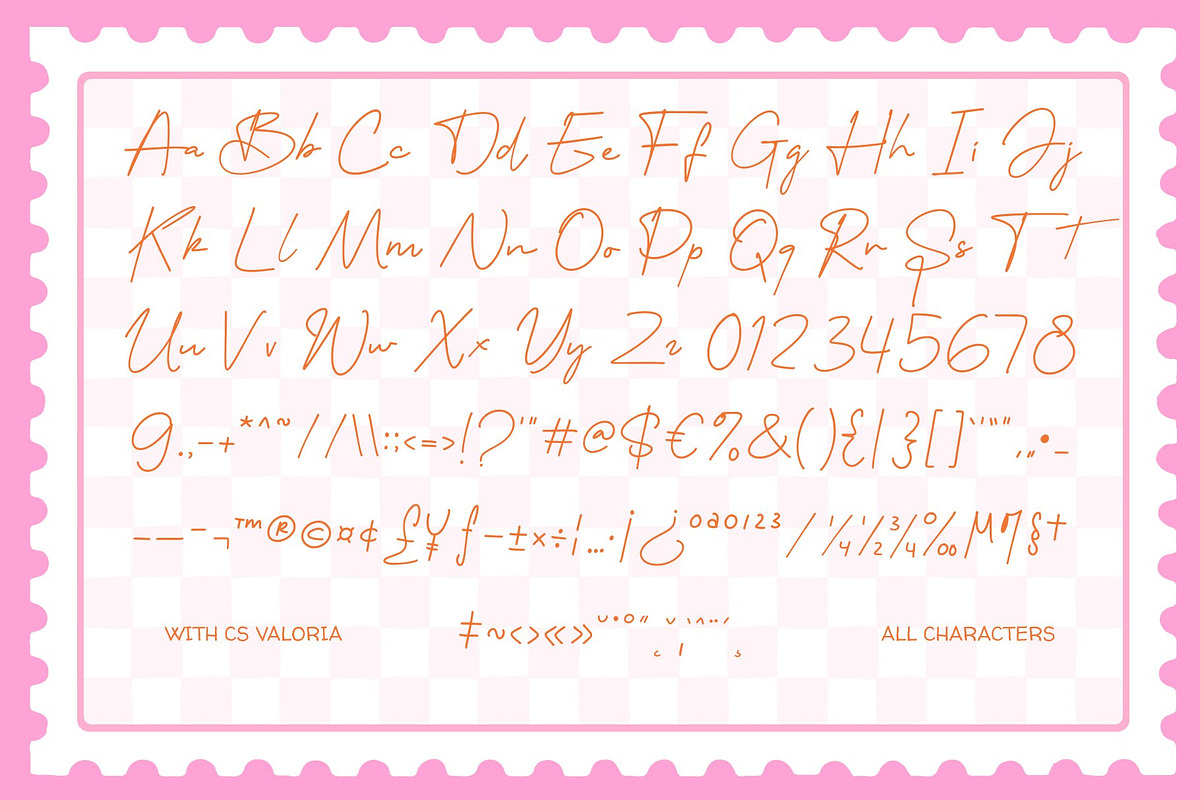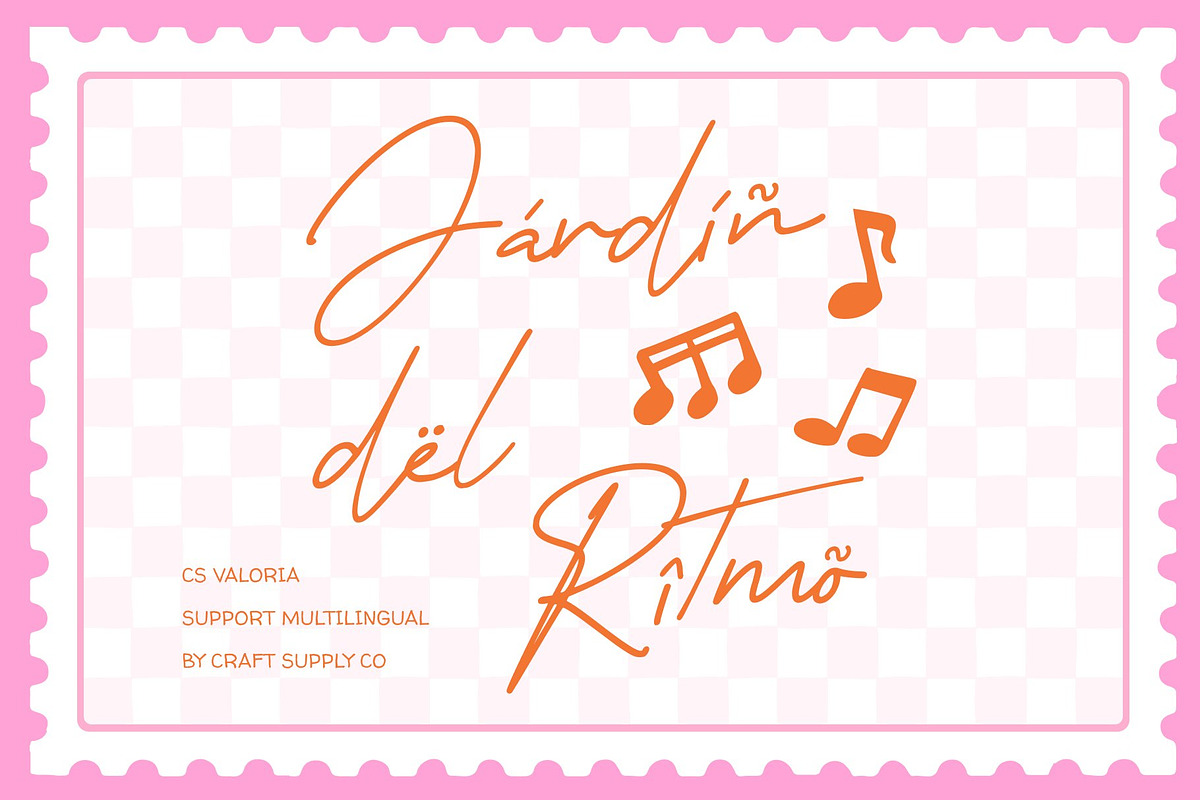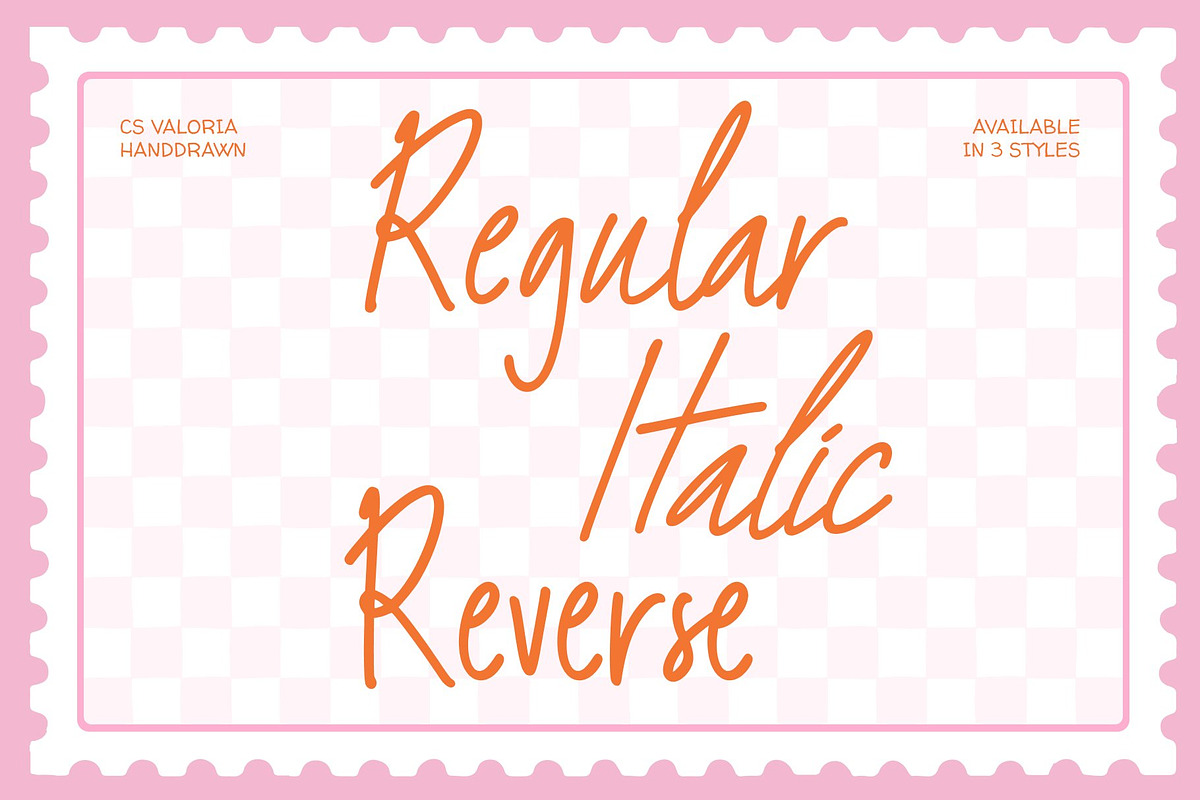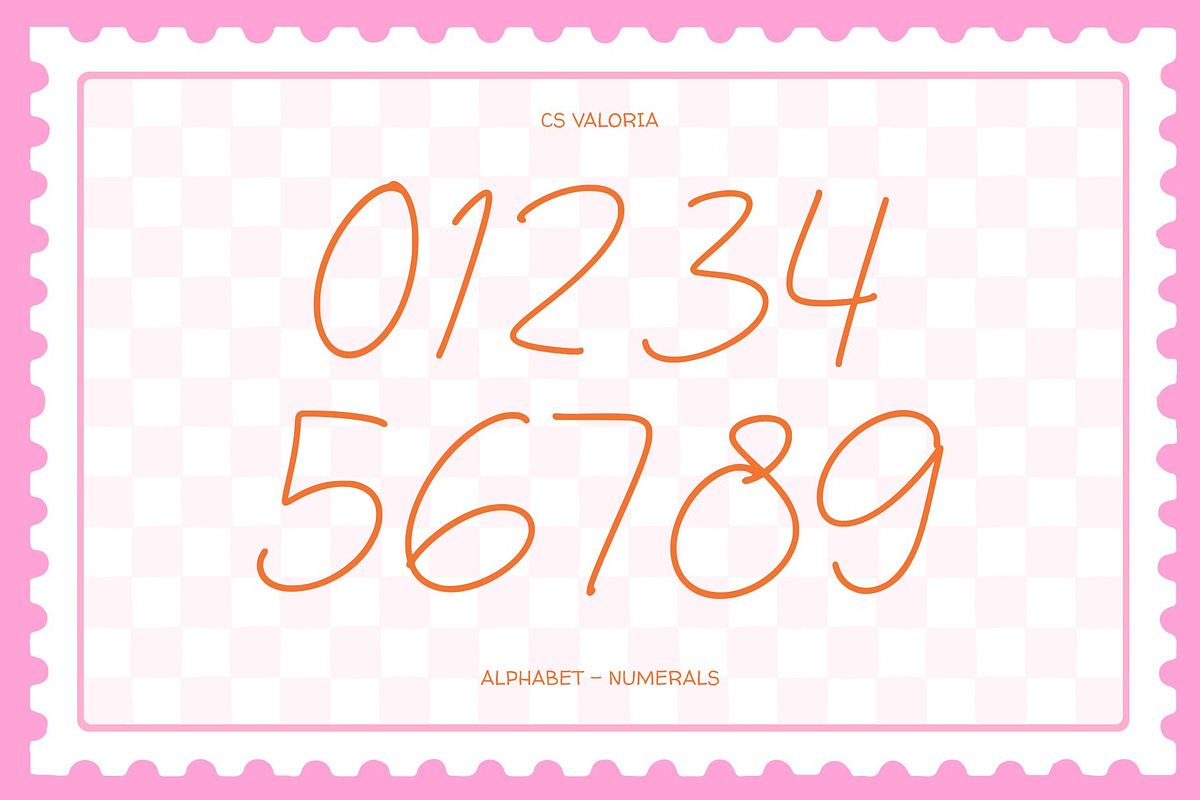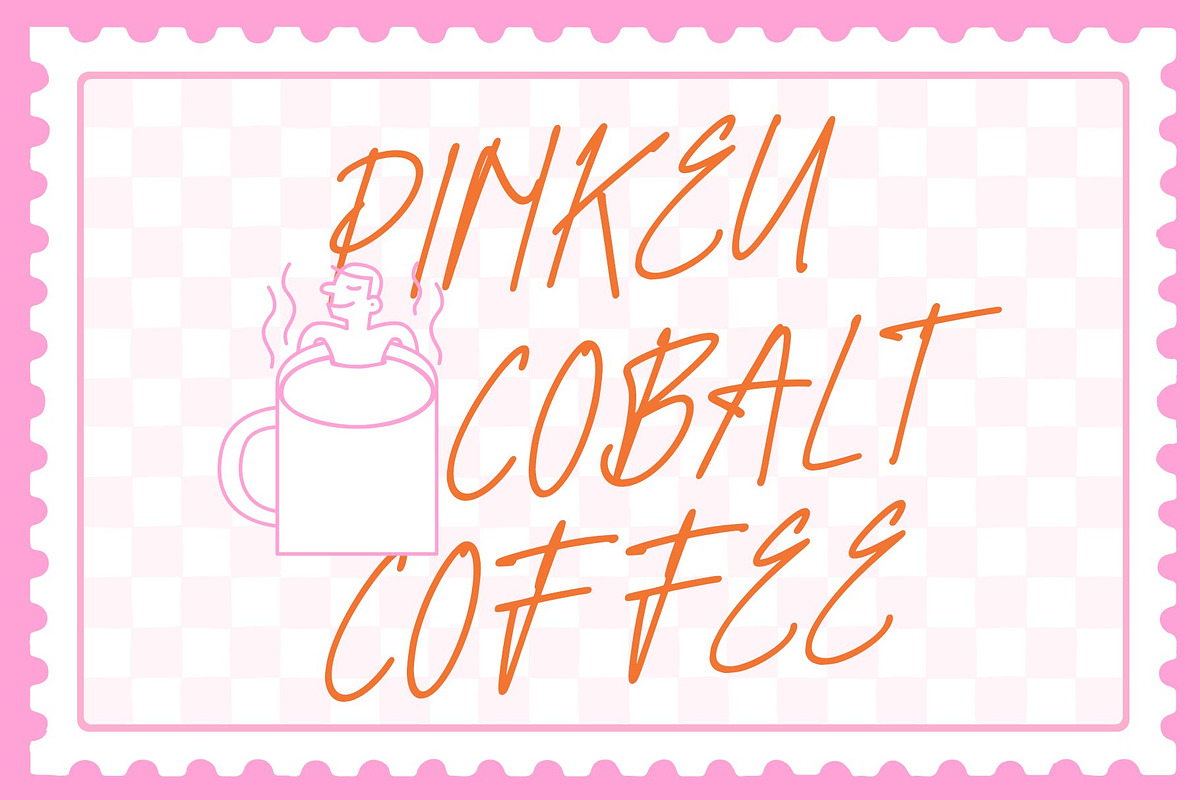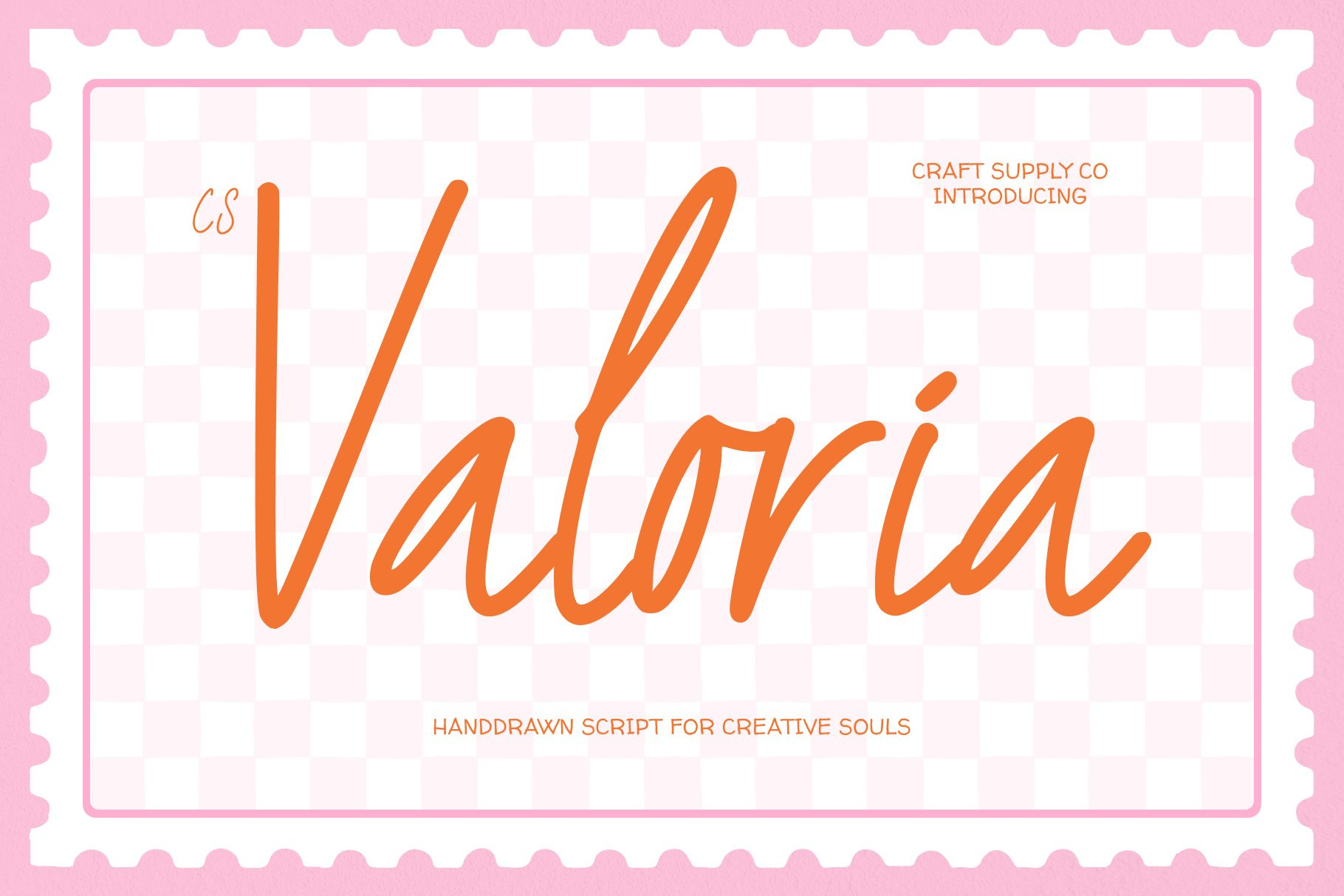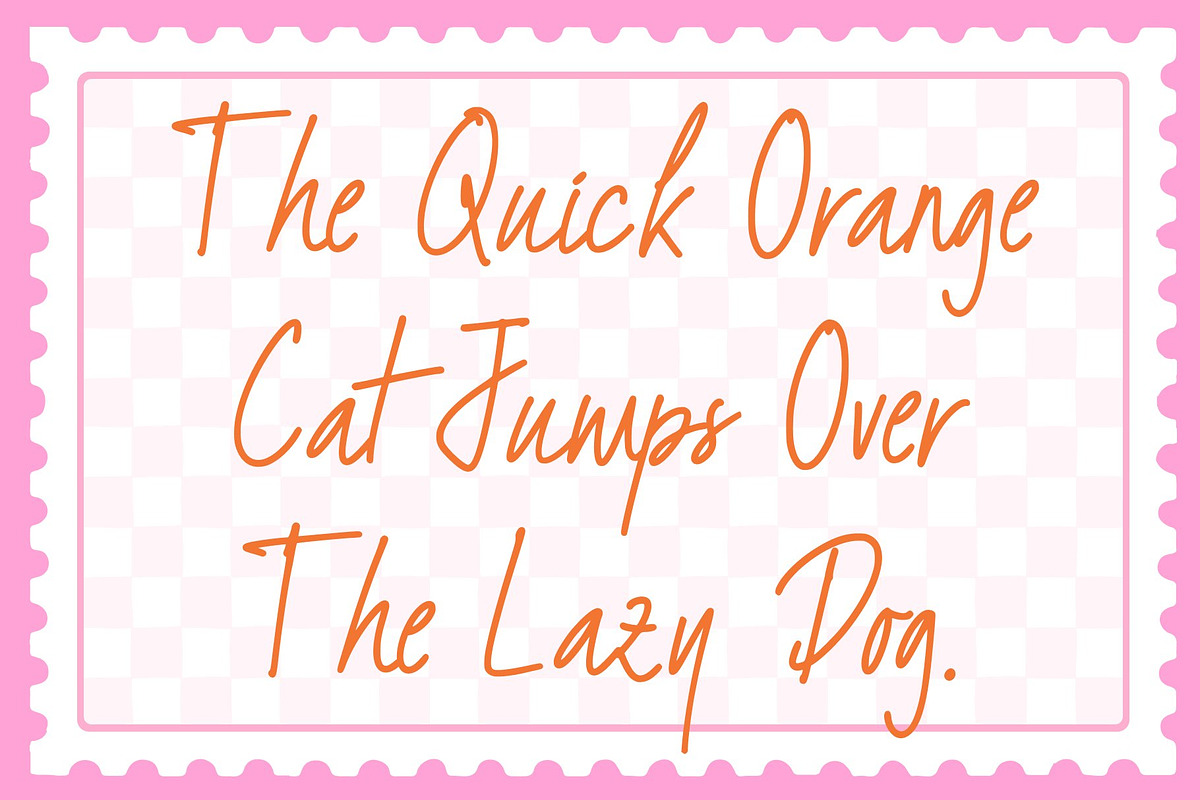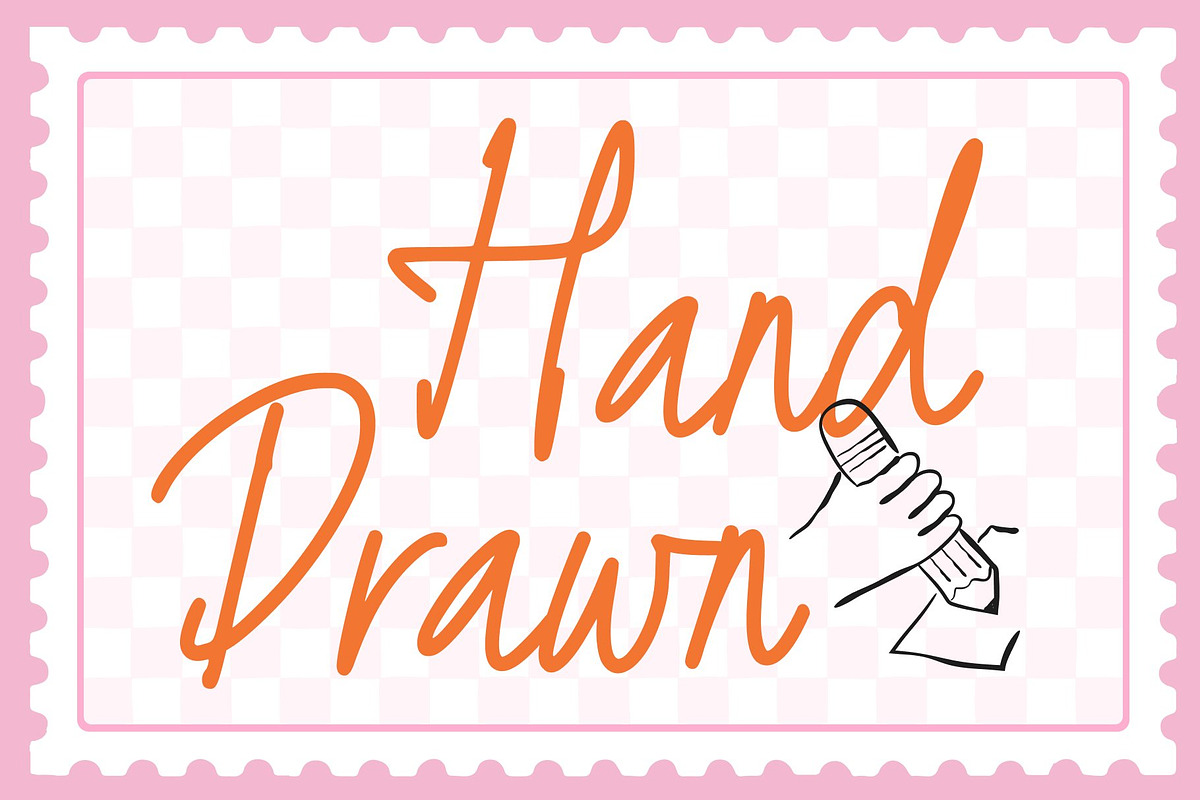
CS Valoria – Handwritten Script Font
CS Valoria – Soft Handwritten Expression with Authentic Warmth
Handwritten Script Font with Natural Pen Character This is a soft and expressive handwritten script font designed to capture the charm and sincerity of natural pen strokes. Inspired by real handwriting, this font delivers a warm and personal feel that brings authenticity to every design. Its gentle flow and organic movement create a relaxed yet refined script style that feels inviting and emotionally engaging.
Organic Strokes with Expressive Detail The letterforms of this font feature smooth connections and subtle variations in stroke weight, mimicking the natural rhythm of handwriting. These expressive details add personality and depth, allowing the font to feel genuine and human without losing clarity. Each character flows naturally into the next, creating a harmonious and readable handwritten look.
Warm Style for Personal Storytelling This font excels in designs that value warmth and personal expression. Its soft script style enhances emotional storytelling, making messages feel more intimate and approachable. Whether used for inspirational quotes or personal branding elements, the font adds charm and sincerity while maintaining a clean and balanced appearance.
Perfect for Branding, Quotes, and Invitations Designed for versatile casual use, this font is perfect for personal branding, quotes, casual invitations, packaging, and social media graphics. Its authentic handwritten style makes it especially suitable for lifestyle brands, small businesses, and creative projects.
- CS Valoria Regular
- CS Valoria Italic
- CS Valoria Reverse Italic